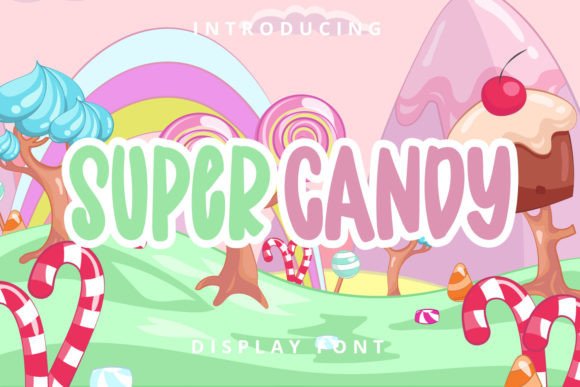
Unleash the Enchanting Super Candy Font: A Journey into Whimsy and Playfulness
Discover the captivating world of Super Candy, a display font that transports you to a realm of pure joy and imagination. This playful font, crafted by the talented nicetrip7, is a symphony of sweetness, delighting the eyes with its charming curves and bubbly shapes. Super Candy is not just a font; it's an invitation to let your creativity run wild, to embrace the magic of childhood, and to embark on a visual adventure like no other.
With its inherent authenticity and vibrant energy, Super Candy is an ideal companion for child-centric designs. Picture storybooks filled with whimsical characters, posters adorned with playful messages, or invitations that spark excitement and wonder. The font's innate charm effortlessly elevates any design, adding a touch of whimsy and magic that captures hearts and leaves a lasting impression.
Step into a world where imagination knows no bounds. Let Super Candy guide you through a kaleidoscope of colors, shapes, and emotions. This remarkable font is a visual treat, transforming ordinary designs into extraordinary masterpieces. Its carefully crafted characters exude personality, inviting you to explore new artistic horizons and create designs that resonate with audiences of all ages.
When you choose Super Candy, you unlock a font that speaks to the heart. Its captivating presence adds a layer of enchantment to any visual creation, evoking feelings of nostalgia, happiness, and pure delight. As you work with Super Candy, you'll find yourself smiling, inspired by its playful nature and the endless possibilities it presents. This font is more than just a tool; it's a gateway to a world where creativity thrives and magic becomes a reality.